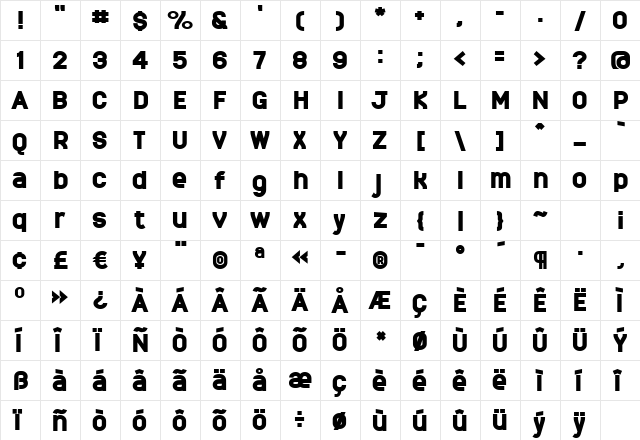
MonarkBlack Regular
Design Context for MonarkBlack Typeface
MonarkBlack takes a measured approach to typography — its balanced proportions and neutral character make it a reliable workhorse for both digital and print work.